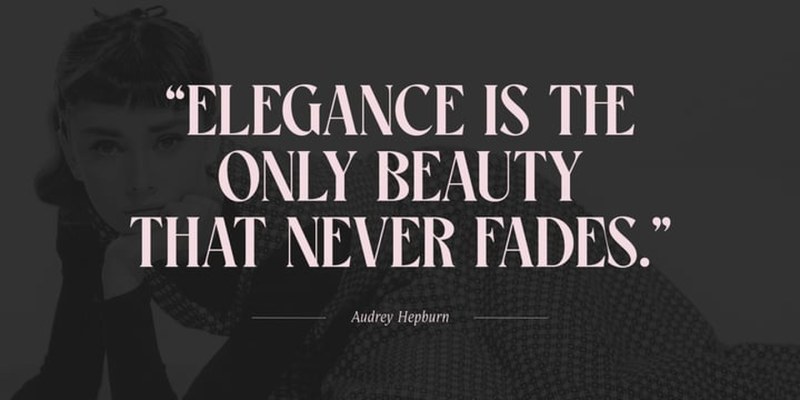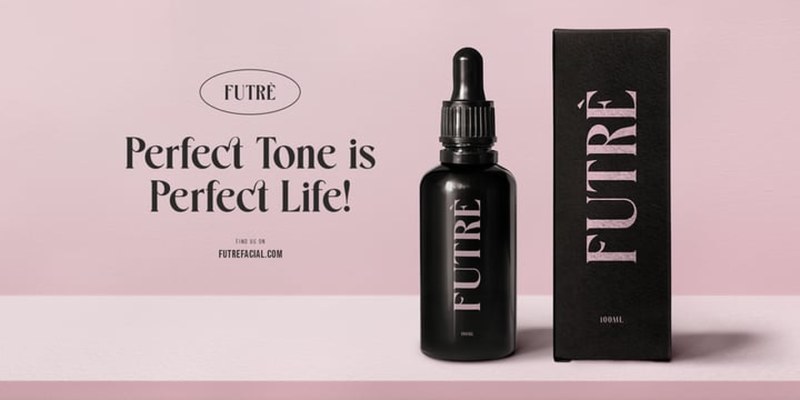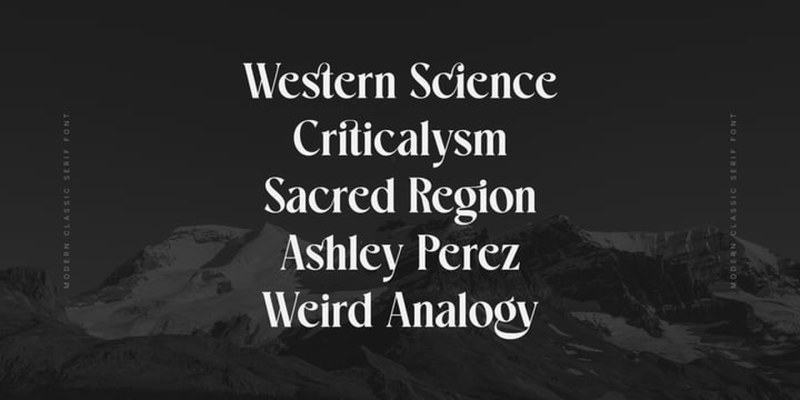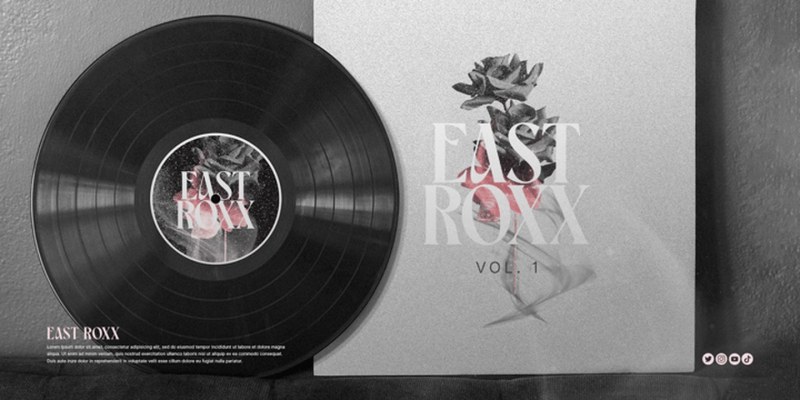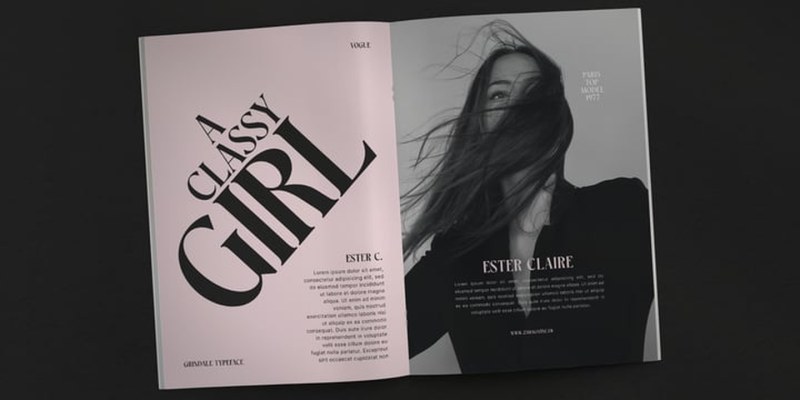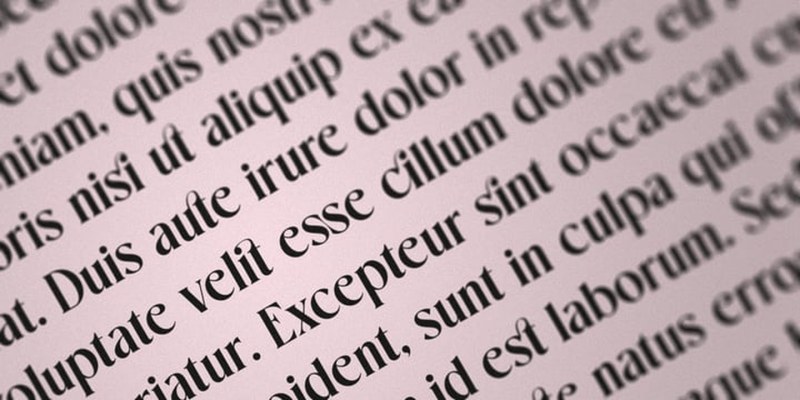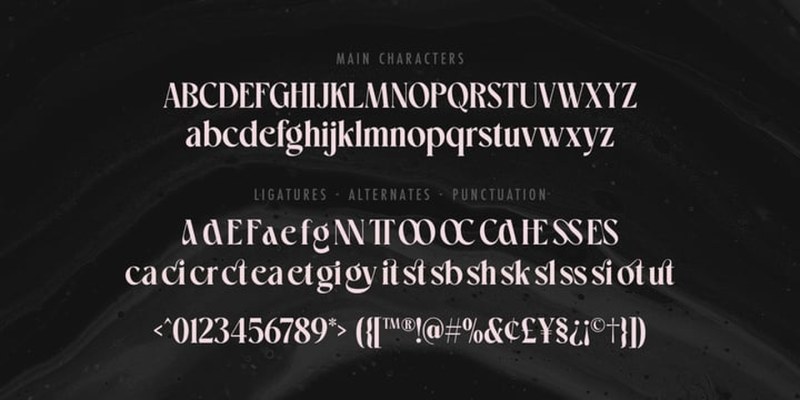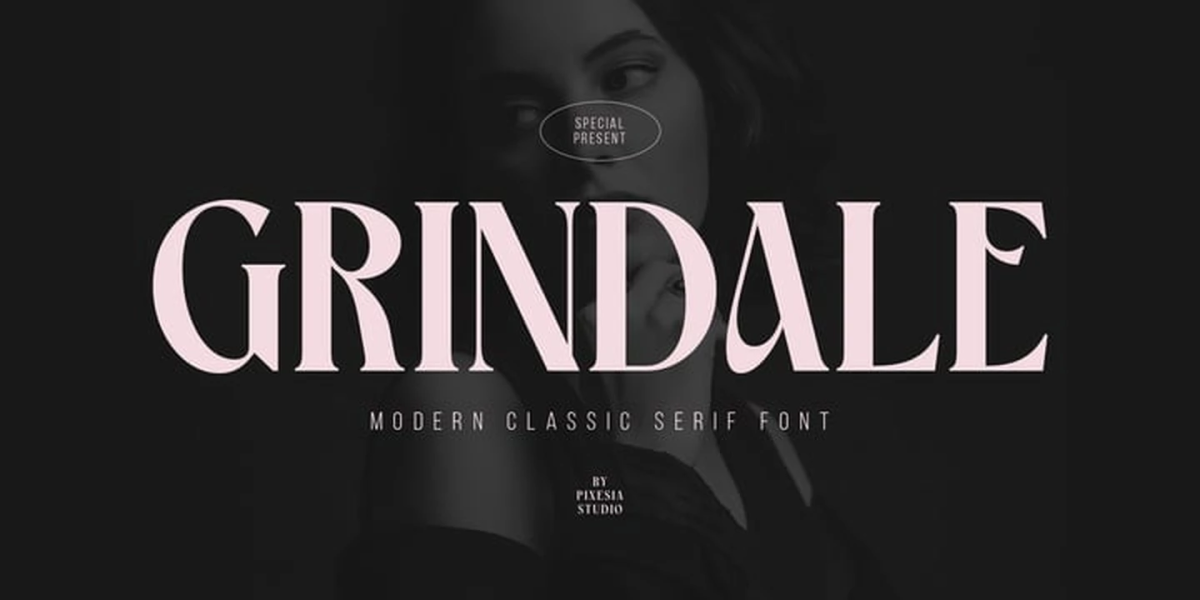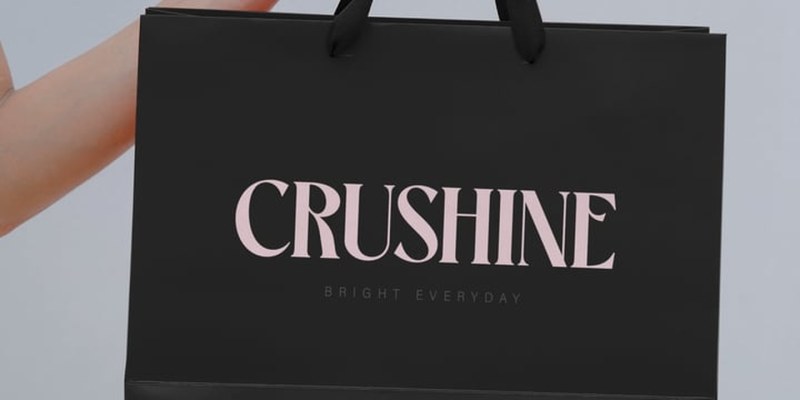
Grindale Font
Grindale is a modern take on the classic serif font that combines timeless elegance with a contemporary edge. This font is perfect for creating elegant headlines, logos,…
Grindale is a modern take on the classic serif font that combines timeless elegance with a contemporary edge. This font is perfect for creating elegant headlines, logos, and other design elements that demand attention. With its clean lines and classic serifs, Grindale is a versatile font that will add a touch of sophistication to any project. Its modern design makes it a great choice for a wide range of projects, from branding and advertising to editorial design and more.
Where Grindale Font works best
Startups & tech
Grindale Font fits product landing pages, app stores and pitch decks with a contemporary feel.
Architecture & real estate
Modern geometric forms suit property brochures, signage and portfolio sites.
Corporate identity
A modern typeface keeps annual reports and presentations clean and current.
What is Grindale Font good for?